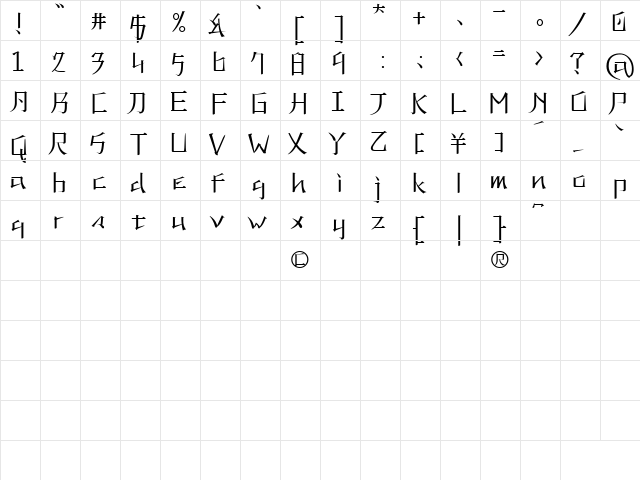
KANEIWA alp regular Regular
Design Context for KANEIWA alp regular Typeface
KANEIWA alp regular is a composed and adaptable typeface that performs quietly and consistently across a wide range of design contexts.